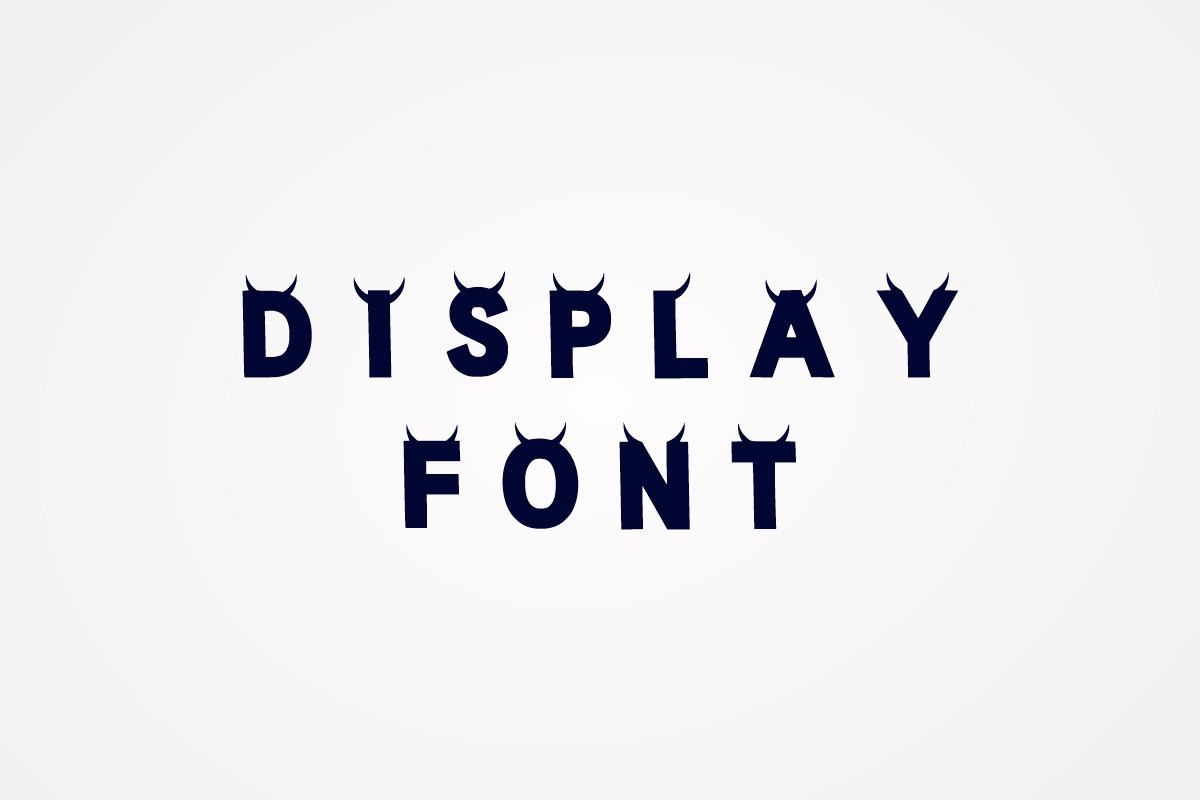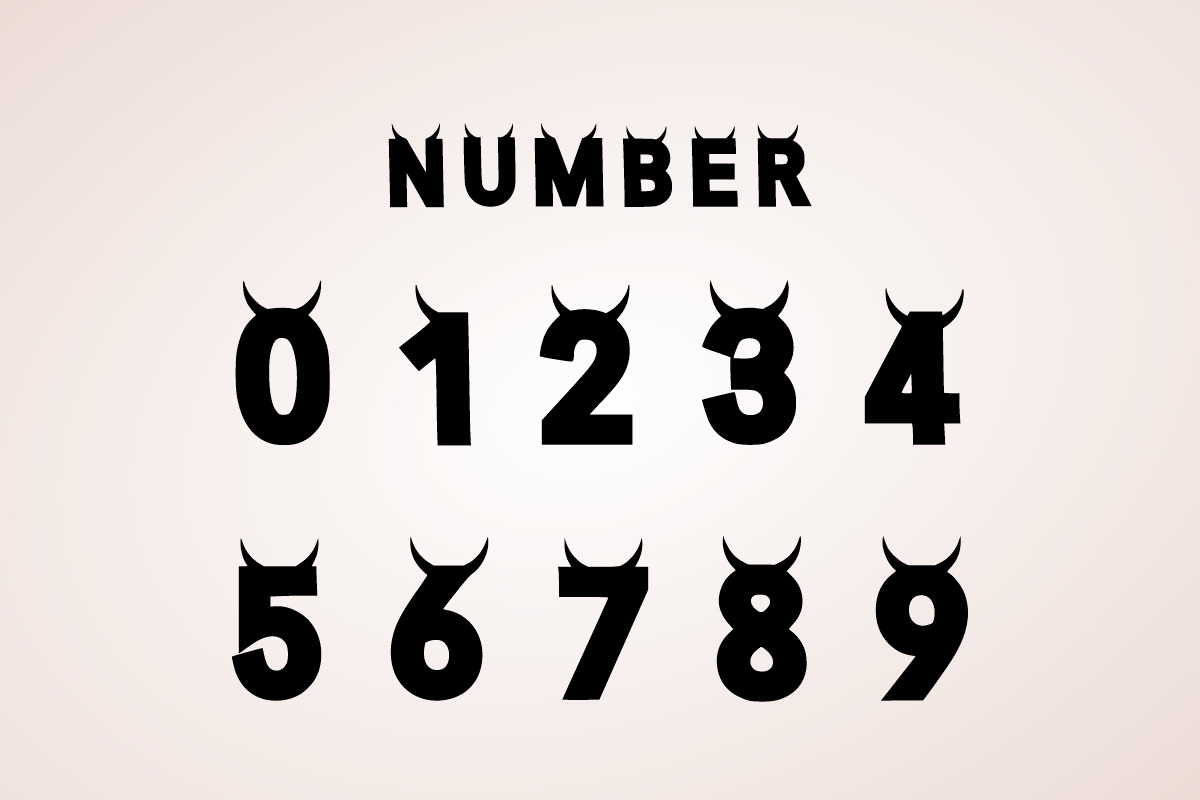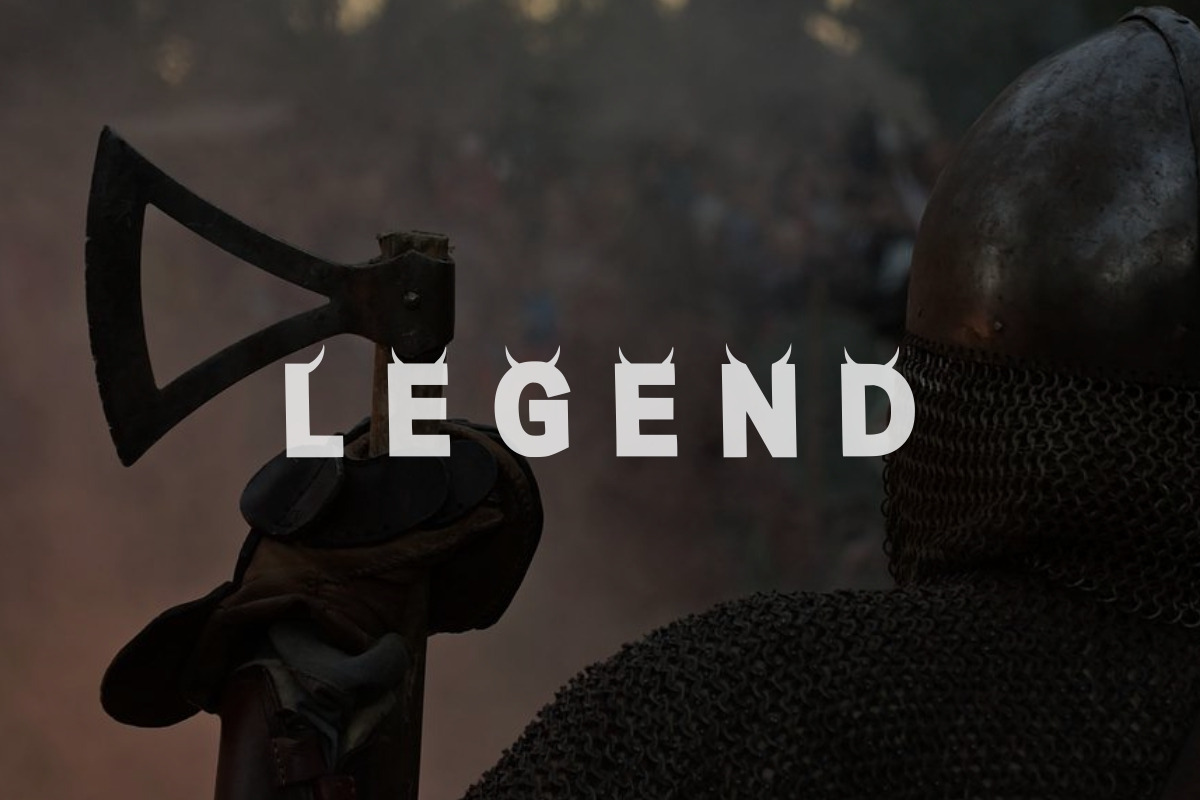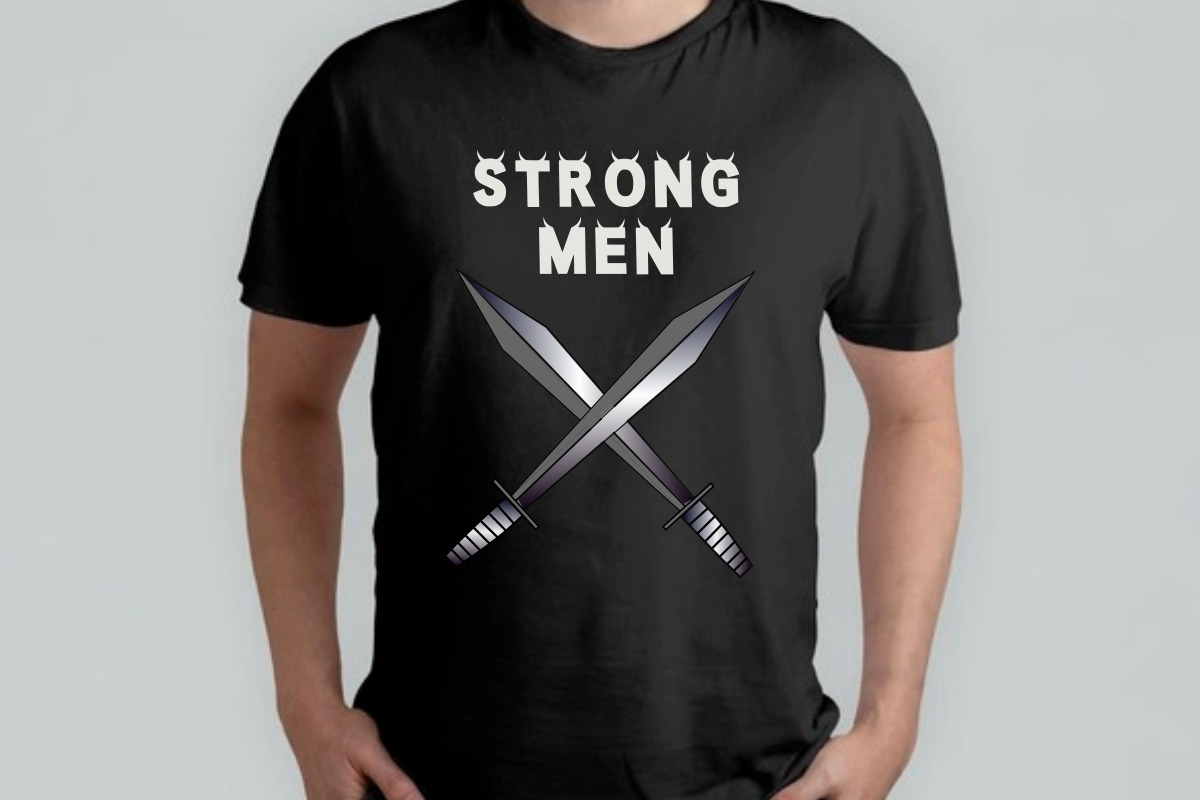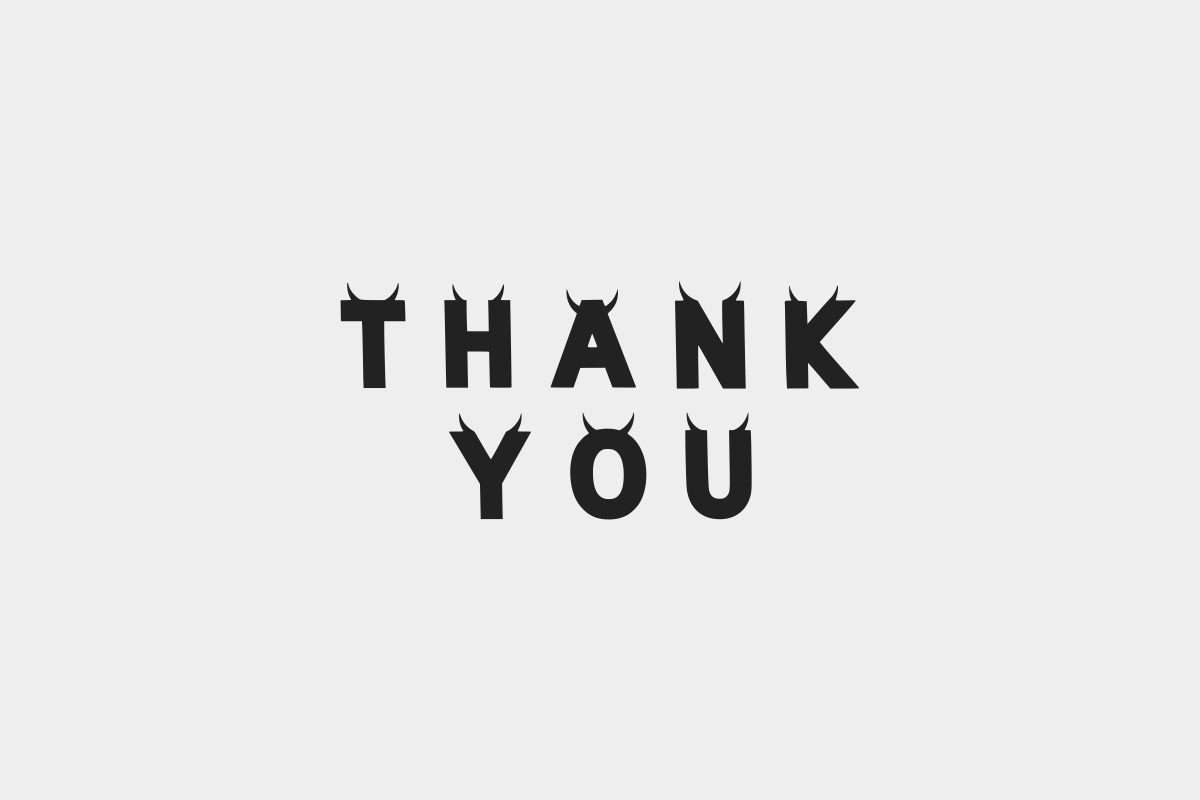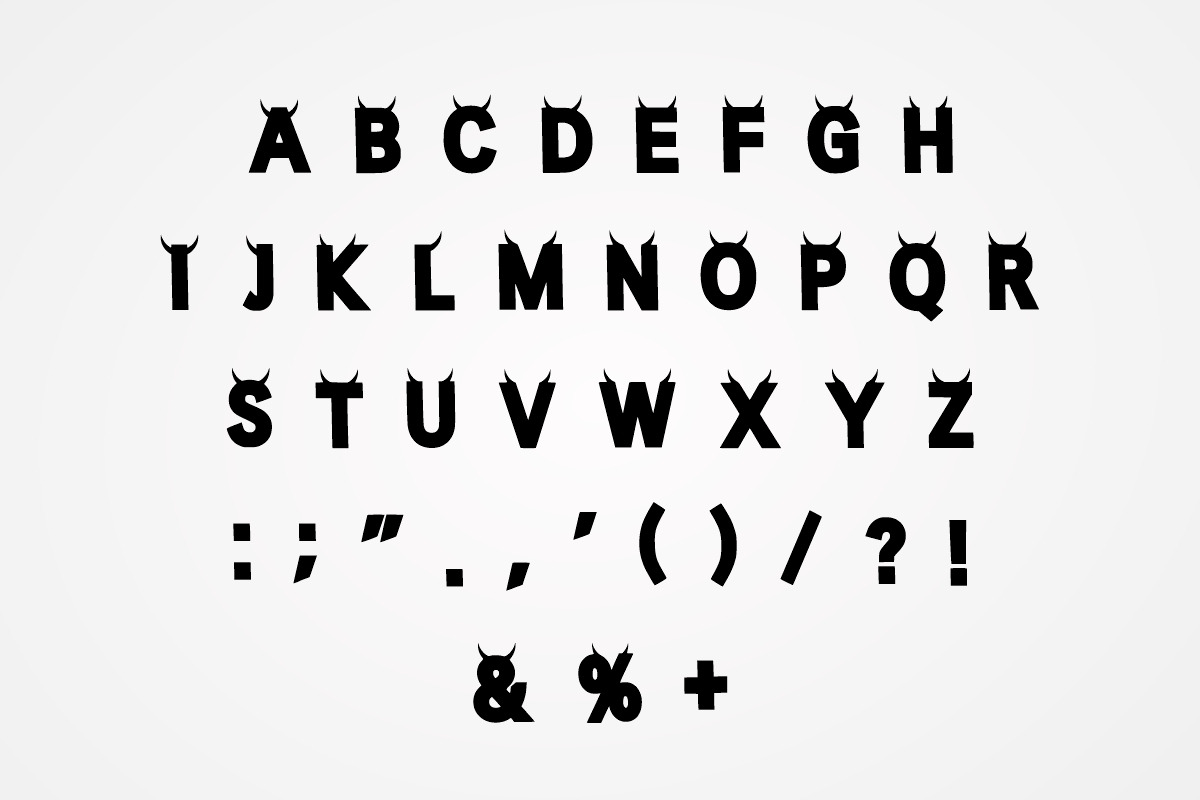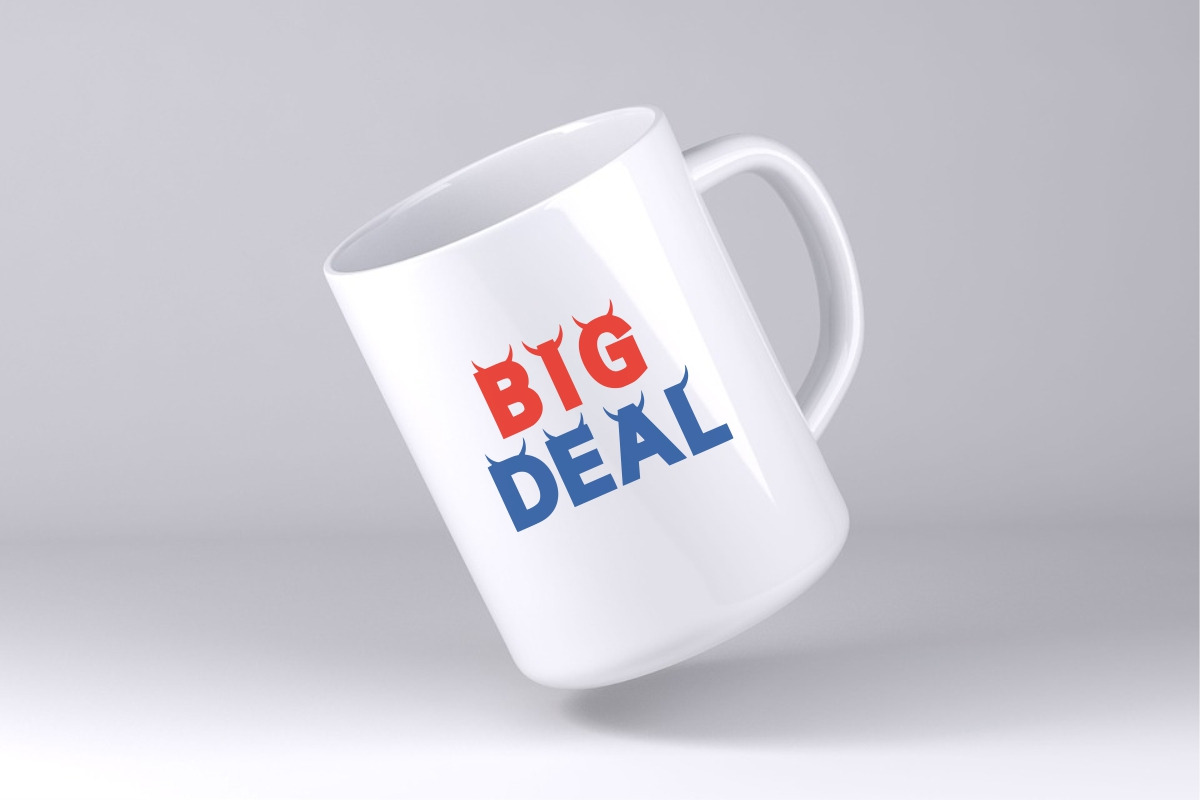
VIKING
Viking is a bold, strong, and creative-lettered display font that can be used for all chalkboard quotes or teaching material! Its authentic look will add a personal and realistic feel to your designs.